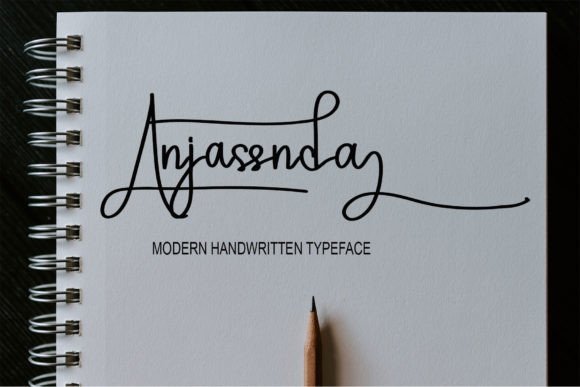
The Perfect Font for Your Next Crafty Project
Have you ever stared at a blank canvas, notebook, or screen, waiting for inspiration to strike? You know, that moment when the creative juices start flowing, and your imagination runs wild? For designers and crafty enthusiasts, this is the moment we live for. And sometimes, all it takes is the right tool to bring our ideas to life.
Enter the Anjassnda Font, a fun and quirky handwritten font that’s sure to add a touch of whimsy to your next crafty project. Whether you’re designing a greeting card, creating a digital art piece, or simply writing a letter to a loved one, this font is the perfect addition to your toolkit.
As a valuable resource for designers, the Anjassnda Font offers a unique and versatile style that’s sure to elevate your work. Its playful charm and effortless feel make it an ideal choice for projects that require a touch of personality and flair.
Anjassnda Font Key Features
- Unique Characteristics: This font features a unique blend of modern and traditional design elements, making it suitable for a wide range of creative projects, from corporate branding to artistic expressions.
Designer Review: Anjassnda Font
After digging into the Anjassnda Font, I found it to be a stylish and modern script font that would be perfect for creatives looking for a sophisticated, handwritten look. ✨ The font’s unique characteristics and flair make it an ideal choice for headings, titles, and other visual elements that require a touch of elegance.
Here are some of the things that stood out to me:
- ✨ Highly legible: The font is easy to read, even at smaller font sizes.
- ✨ Versatile: Anjassnda Font can be used for a variety of projects, from logos and branding to typography and design elements.
- ✨ Customizable: The font’s OpenType features allow for advanced typographic control and customization.
- ⚠️ Limited language support: Anjassnda Font may not support all languages, which could be a drawback for global brands or projects.
- ⚠️ Not suitable for body text: Due to its script nature, the font may not be the best choice for large blocks of text.
Overall, I think Anjassnda Font is a solid addition to any designer’s toolkit, but it’s essential to weigh its strengths and weaknesses before deciding whether it’s the right fit for your project.
Tips for Getting the Most Out of Anjassnda Font
Use Anjassnda Font for creative and unique designs that require a touch of elegance and sophistication.
Pair Anjassnda Font with other fonts to create a visually appealing contrast.
Experiment with different font sizes and styles to achieve the desired effect.
Anjassnda Font is ideal for:
Business cards and brochures
Menu designs and restaurant branding